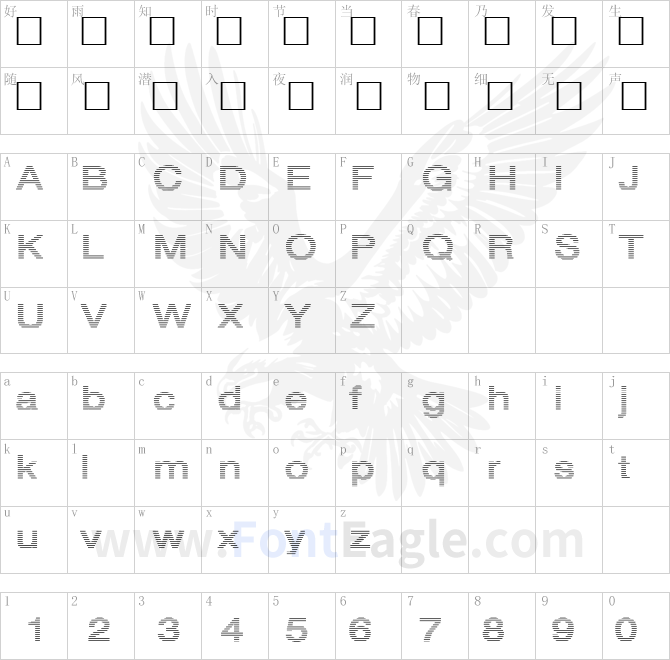
HILDIE-Regular is a great font, widely used in graphic design, single-page menu design, poster design and other fields, and is deeply loved by designers.HILDIE-Regular download.